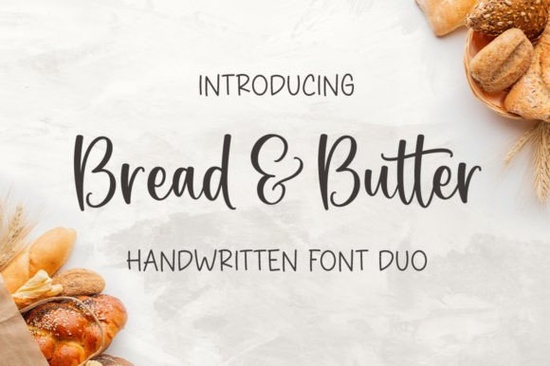
If you're looking for a friendly, versatile font pairing that works just as well on a handmade greeting card as it does on a small-batch product label, the Bread and Butter Duo Font is worth your attention. It’s two fonts in one: a relaxed, flowing script and a clean, modern sans serif designed to sit together naturally, not forced. You don’t need design experience to see how they balance each other: the script adds warmth and personality, while the sans keeps things grounded and readable. That makes this duo especially handy if you’re designing for craft fairs, Etsy listings, or custom stationery.
When does this pairing actually save time?
Most designers juggle multiple fonts trying to get contrast and cohesion especially when working across formats like social graphics, printable planners, and SVG cut files. With Bread and Butter Duo, the pairing is already tested and tuned. The script has gentle swashes and open letterforms (no cramped spacing), and the sans shares similar x-height and rhythm. So when you switch from “Hand-poured Olive Oil” in script to “Small Batch • Made in Vermont” in sans, it feels intentional not like two random fonts pasted together.
This matters most when you’re balancing aesthetics with function. For example, print-on-demand sellers often need legible body text alongside decorative headings. Teachers creating classroom posters might want something cheerful but still easy for kids to read. Small business owners updating their packaging or Instagram story templates need consistency across platforms and fewer font licenses to manage.
How does it compare to other friendly script-sans combos?
Not all pairings are created equal. Some scripts look lovely on their own but clash with overly geometric sans fonts. Others feel too formal or too busy for everyday crafting. The Bread and Butter Duo sits comfortably between playful and polished less ornate than Gorgeous Teacher Font, less structured than Astutely Font, and more balanced than standalone script fonts like Milkshake Font or Gistesy Font. It’s the kind of pairing you reach for when you want charm without fuss.
It also includes standard OpenType features like ligatures and alternate characters so you can soften a word like “butter” with a subtle crossbar or add a light flourish to “bread” without switching fonts or editing outlines. No extra software needed; it works in Cricut Design Space, Silhouette Studio, Canva, and desktop apps like Illustrator or Affinity Designer.
Where do people actually use these fonts?
We’ve seen crafters use the script for hand-lettered-style quotes on vinyl decals, then drop in the sans for small-print care instructions underneath. Wedding stationers combine them for “Emma & James” (script) + “Saturday, June 15th • 4 PM” (sans). Small food brands apply the duo to jam jar labels script for the flavor (“Blackberry Lavender”), sans for net weight and ingredients. Even educators use the sans alone for editable PDF worksheets where clarity matters more than flair.
What should you try first?
Start simple. Type a short phrase in the script font like “freshly baked” or “made with love” then set the supporting line (e.g., “est. 2023” or “hand-stitched in Portland”) directly below in the sans. Adjust tracking slightly if needed, but chances are, it’ll look balanced right away. If you’re using it for cutting machines, convert the script to outlines before uploading just in case your software doesn’t render the OpenType features correctly.